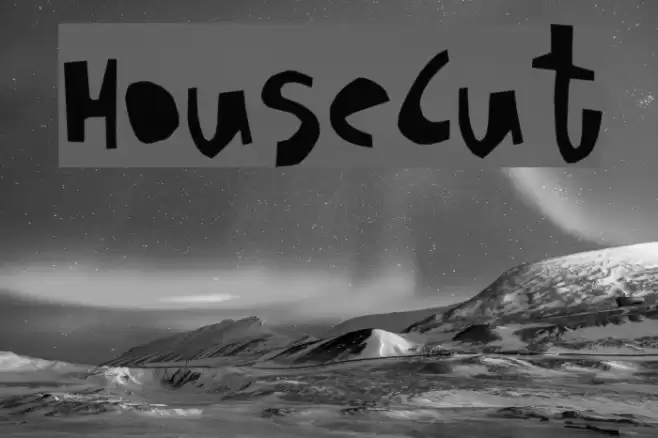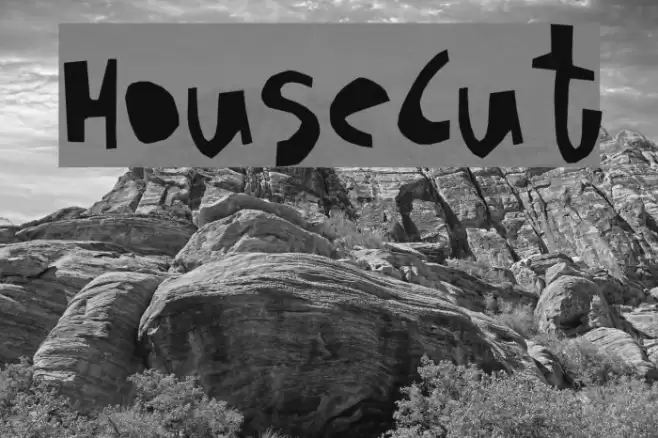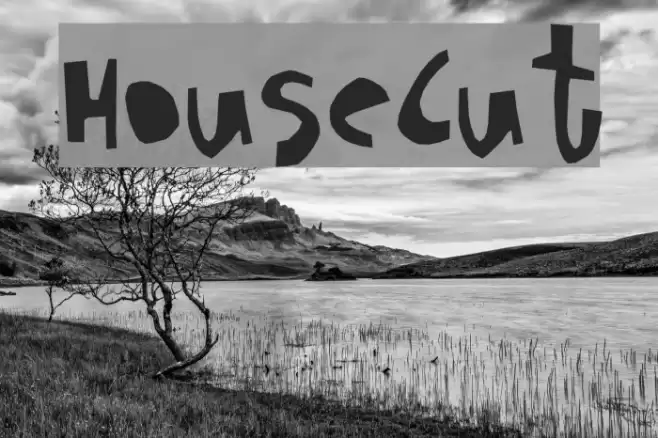
HouseCut Font
HouseCut Description
This font features a playful and irregular style, with each character exhibiting a hand-cut appearance. The letters have a bold, uneven quality, creating a sense of movement and energy. The uppercase and lowercase letters maintain a consistent whimsical aesthetic, with varying stroke widths and angles that add to the font's dynamic character. Numbers and special characters follow the same design principles, ensuring a cohesive look across all glyphs. This font's unique, artistic style makes it stand out, offering a fresh and creative approach to typography.
A playful, hand-cut style font with bold, irregular characters from Basic fonts.
- Proposed Projects: Ideal for children's books, creative posters, playful branding, and artistic projects.